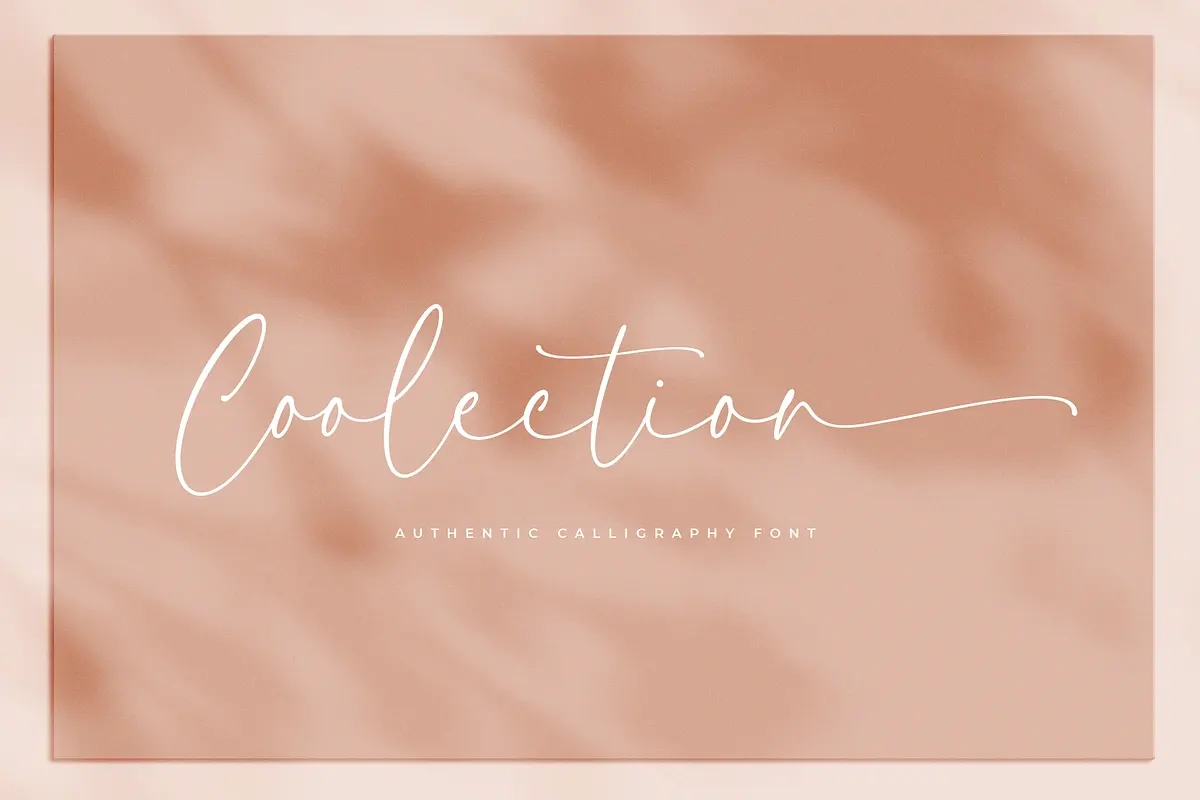
You must purchase this font for commercial use. However, you can download Coolection Script Font Free Download for testing purposes. Coolection is a stylish, flowing script font that brings a modern, elegant touch to your designs. Its smooth, cursive-like strokes make it ideal for creating elegant logos, branding, invitations, greeting cards, and social media content that requires a sophisticated, yet approachable aesthetic.
With its smooth curves and beautiful letterforms, Coolection Script Font adds a personal, handcrafted feel to your typography while maintaining readability and charm. Whether you're designing a chic brand identity, crafting a romantic wedding invitation, or creating an artistic logo, Coolection enhances your design with elegance and flair.